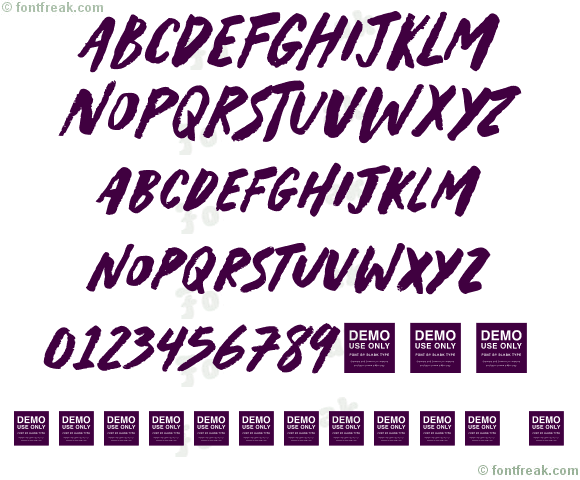
Jam Hot
About Jam Hot
Jam Hot by BLKBK Fonts is a striking display font that exudes a modern, energetic vibe. This font features a bold, handwritten style characterized by its dynamic strokes and playful curves, making it an excellent choice for a variety of creative applications. The strokes are thick and expressive, contributing to a visually engaging contrast that captures attention. With a slightly irregular spacing that mimics natural handwriting, Jam Hot conveys a sense of spontaneity and warmth, perfect for projects that aim to connect with audiences on a personal level.
Ideal use cases for the Jam Hot font include vibrant wedding invitations, where its lively character can set a joyous tone. It can also shine on movie posters, providing a contemporary flair that draws viewers in. Restaurant menus will benefit from its unique style, helping to create a memorable dining experience while adding a touch of creativity to the presentation. Furthermore, this font works brilliantly for promotional materials aimed at small businesses looking to establish a friendly yet professional image.
What sets the Jam Hot font apart is its ability to fuse artistic expression with legibility. This unique balance allows it to stand out in a crowded market of fonts, making it a go-to choice for projects that require a personal touch. Don't miss the chance to elevate your designs with the Jam Hot font free download, a perfect addition to your typography toolkit.